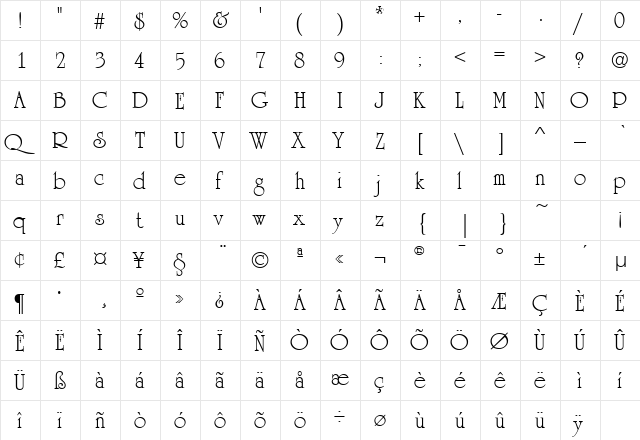
FlairRoman Regular
Design Context for FlairRoman Typeface
FlairRoman is a composed and adaptable typeface that performs quietly and consistently across a wide range of design contexts.